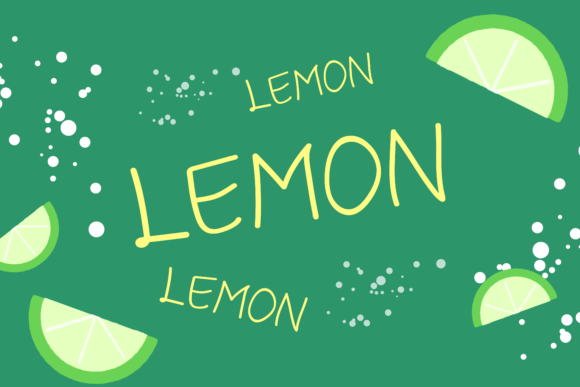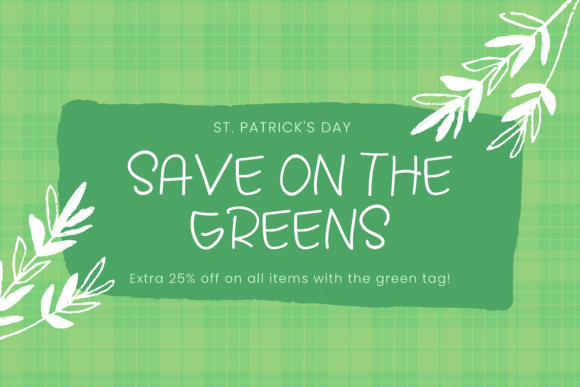
Blip Blops Font
db-ku.com - Script & Handwritten -- Blip Blops is a simple, fun and uplifting handwritten font. This customizable font will look great on a variety of design ideas. Its natural and unique style makes it a perfect fit for any of your projects. The only limit is your imagination!